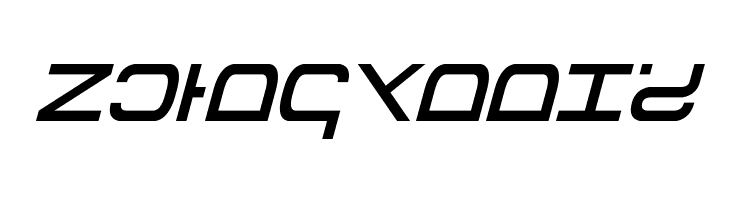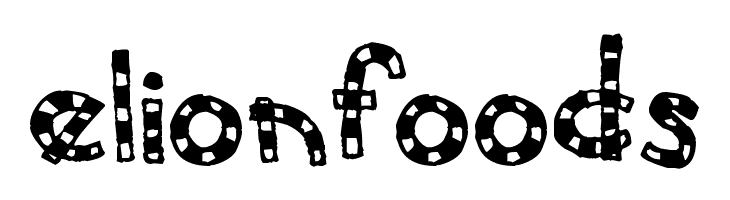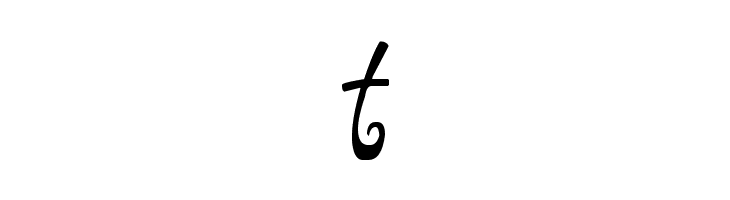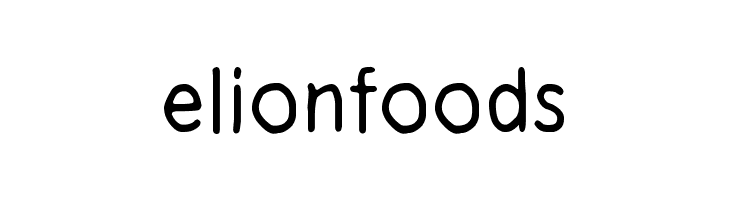
• Tickle Me Elmo
• Time goes by so slowly
A playful, hand-drawn font with rounded edges and even spacing.
• Time Machine
A playful, hand-drawn font with a textured, whimsical style.
• Time News Rome
• Tingle Institute
A whimsical, hand-drawn font with playful curls and swirls.
• Tirolese Italic
A modern, italic font with a futuristic and dynamic style.
• TomeOfTheUnknown
A decorative font with intricate, vine-like embellishments and a mysterious, enchanting style.
• Tomodachy
A playful, hand-drawn font with rounded, friendly characters.
• Tonight's the Night
A playful, dotted font with bold, rounded characters.
• Tonopah Hollow Bold
A bold, hollow, geometric font with a strong, uniform appearance.